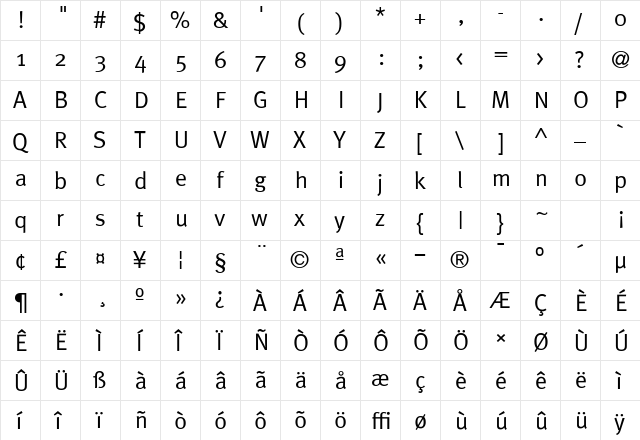
MetaNormal Regular
Design Context for MetaNormal Typeface
MetaNormal is a composed and adaptable typeface that performs quietly and consistently across a wide range of design contexts.
Pro Tip: Pair MetaNormal with a font of contrasting weight or personality to build a more expressive typographic hierarchy.